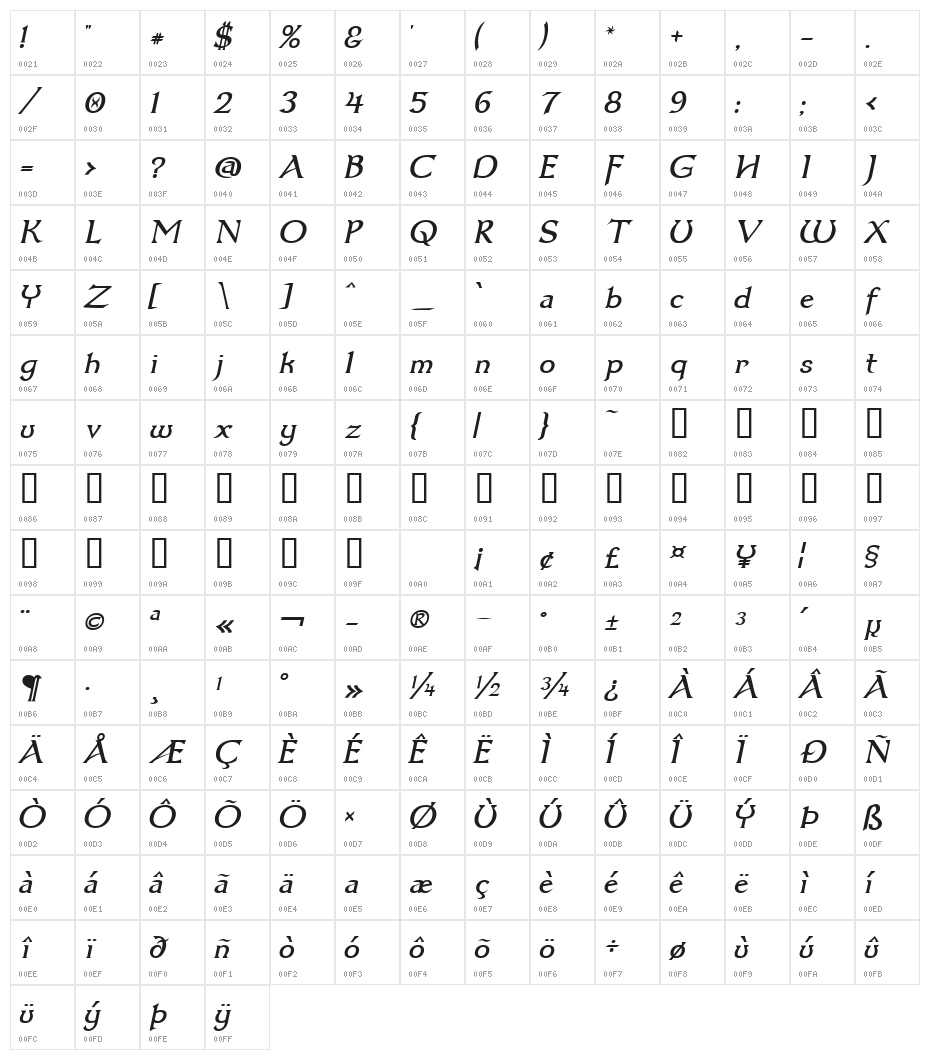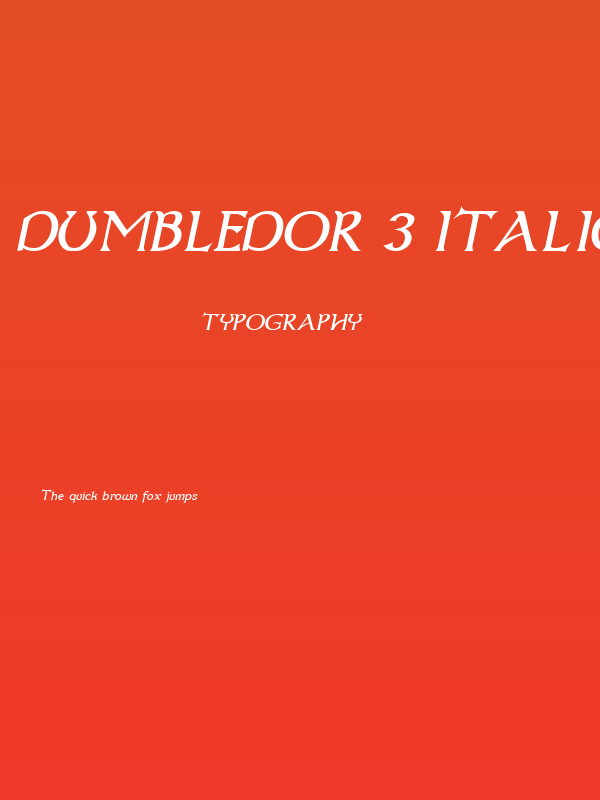
Dumbledor 3 Italic Font
Dumbledor 3 Italic Description
This font features a dynamic and elegant italic style with sharp, angular serifs and a distinct calligraphic influence. The uppercase letters exhibit a strong presence with their elongated forms and pointed terminals, while the lowercase letters maintain a fluid and cohesive appearance. The numerals are uniquely styled, adding a touch of sophistication and flair. Special characters are crafted with the same attention to detail, ensuring consistency across the typeface. The overall design is both striking and versatile, making it suitable for a variety of creative applications.
| Proposed Projects | Ideal for branding, editorial design, invitations, and artistic projects that require a touch of elegance. |